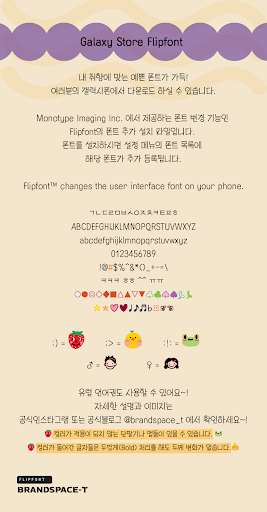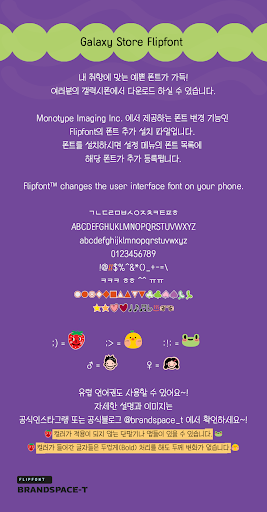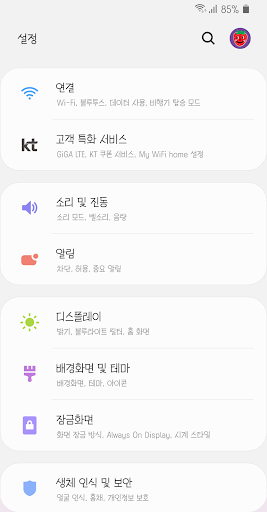
BSTPointSans
This typeface is a rolling gothic that can be a point in the organized module with the motif of pop-up letters. It is a lively and lively concept. It is "Soon, My, My Brand" BSTPointSans, where you can spread the space between the top and bottom and enjoy a new sense of space and variety in Jaso. Look for the witty hidden ding-betts!
+ ;) Brand Space-Tea's point dingbet, a pretty smile! Sweet strawberry's cute smile!
+ ;> "Fresh chick" Dingbet!
+ :!: "Red-cheeked frog" Dingbet!
+ ♂ (Boy) ♀ (Girl) There is!
+ Colored letters do not change in thickness even if they are made thick.